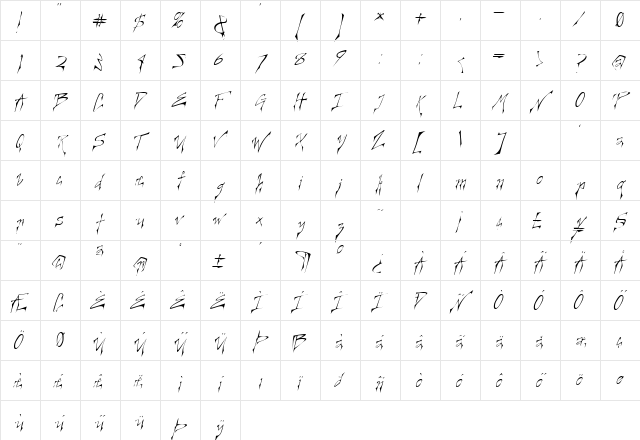
Creepygirl Hu LightOblique
Style: LightOblique
Creepygirl Hu Family
Design Context for Creepygirl Hu
Creepygirl Hu carries an unsettling edge - its distorted letterforms are built to unsettle, perfectly suited to horror, Halloween, and dark creative work. The slanted form adds forward momentum and visual energy.
Font Pairing: Pair with a clean neutral sans-serif for body copy to let Creepygirl Hu's character lead without overwhelming the composition.
Pro Tip: Use Creepygirl Hu at larger display sizes for maximum impact. Consider generous tracking to let the disturbing character of each letterform breathe.